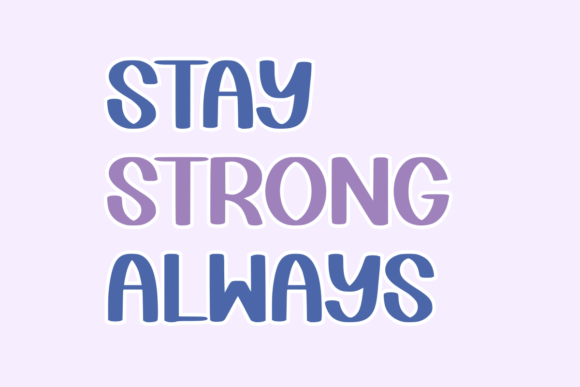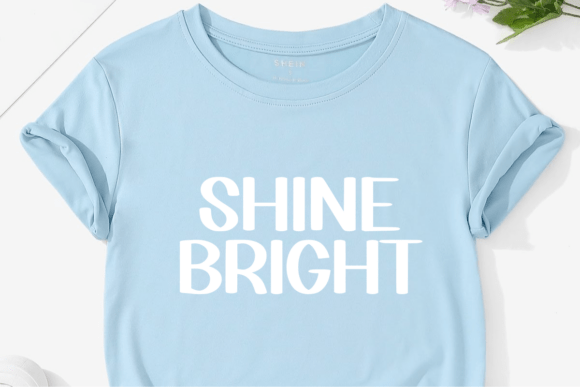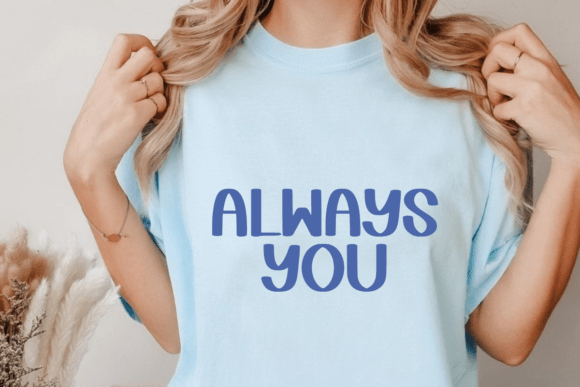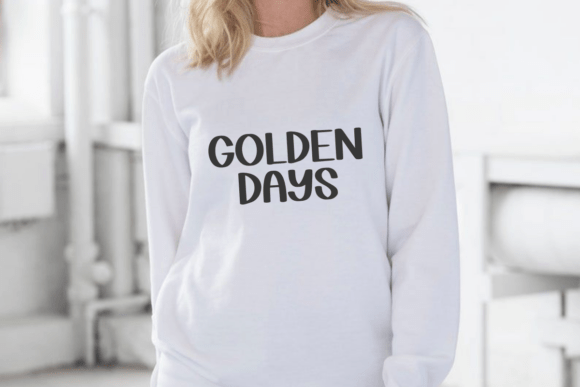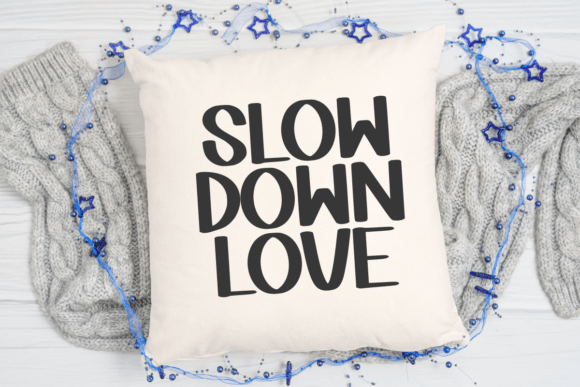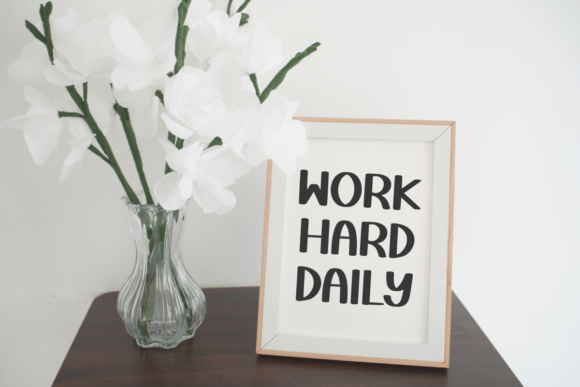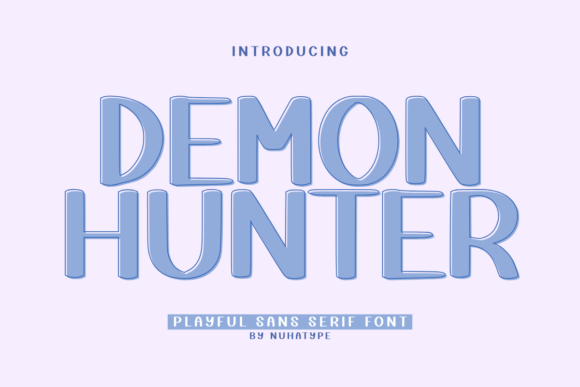
Demon Hunter Font: The Perfect Choice for Crafty Projects
Are you a crafter, designer, or DIY enthusiast looking for a font that can add a touch of warmth and personality to your projects? Look no further than the Demon Hunter Font! This adorable sans serif handwriting font is designed to bring a soft, friendly, and natural look to your craft projects, making it perfect for a wide range of applications.
What is Demon Hunter Font?
Demon Hunter Font is a carefully crafted font that boasts a unique blend of simplicity and elegance. Its smooth curves and simple strokes make it easy to read and use in a variety of contexts, from quotes and greeting cards to kids’ labels and coloring pages. The font’s handcrafted feel is perfect for crafty projects that require a personal touch, and its friendly demeanor makes it ideal for projects aimed at kids and families.
Characteristics of Demon Hunter Font
So, what makes Demon Hunter Font so special? Here are just a few of its key characteristics:
• Soft and friendly look: The font’s rounded edges and smooth curves give it a soft and approachable look that’s perfect for crafting projects.
• Handcrafted feel: The font’s subtle imperfections and variations in stroke width give it a warm, handcrafted feel that’s perfect for DIY projects.
• Easy to read: The font’s simple strokes and clear letterforms make it easy to read, even at small sizes.
• Versatile: The font is suitable for a wide range of projects, from kids’ worksheets and classroom printables to scrapbooks and bullet journals.
Perfect for Crafting Moms and Designers
Demon Hunter Font is a dream come true for crafting moms and designers who love working with handwritten fonts. Its smooth curves and simple strokes make it easy to cut using popular cutting machines like Cricut and Silhouette, and its friendly demeanor makes it perfect for projects aimed at kids and families.
Project Ideas for Demon Hunter Font
So, what can you create with Demon Hunter Font? The possibilities are endless! Here are just a few ideas to get you started:
• Quotes and posters: Use the font to create inspiring quotes and posters for your home or office.
• Greeting cards: Add a personal touch to your greeting cards with the font’s warm and friendly feel.
• Kids’ labels and stickers: Use the font to create fun and colorful labels and stickers for your kids’ projects and belongings.
• Coloring pages and worksheets: Create engaging coloring pages and worksheets for kids with the font’s clear and easy-to-read letterforms.
• Bullet journals and planners: Add a touch of personality to your bullet journals and planners with the font’s smooth curves and simple strokes.
• Scrapbooks and photo albums: Use the font to create beautiful and personalized scrapbooks and photo albums.
Tips for Using Demon Hunter Font
Here are a few tips for getting the most out of Demon Hunter Font:
• Experiment with different sizes: The font looks great at a wide range of sizes, from small labels to large posters.
• Pair with other fonts: Try pairing the font with other fonts to create interesting and dynamic text combinations.
• Use for digital and print projects: The font is suitable for both digital and print projects, from social media graphics to flyers and brochures.
Demon Hunter Font is a versatile and charming font that’s perfect for crafty projects, designers, and DIY enthusiasts. Its soft and friendly look, handcrafted feel, and easy-to-read letterforms make it ideal for a wide range of applications, from kids’ worksheets and classroom printables to scrapbooks and bullet journals. So why not give it a try and see what amazing projects you can create?